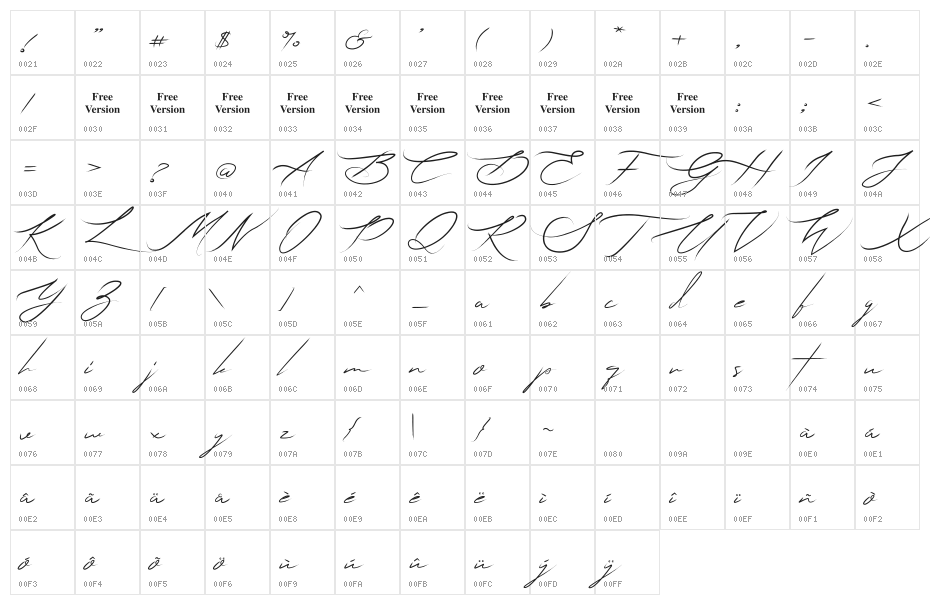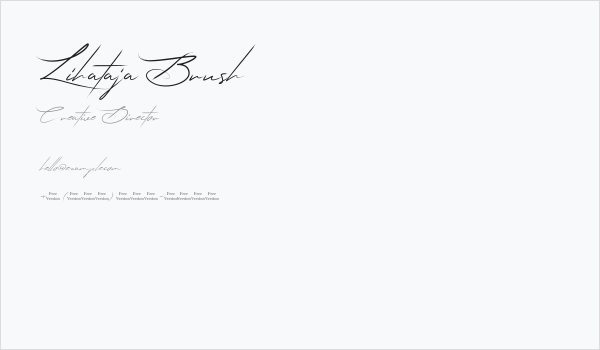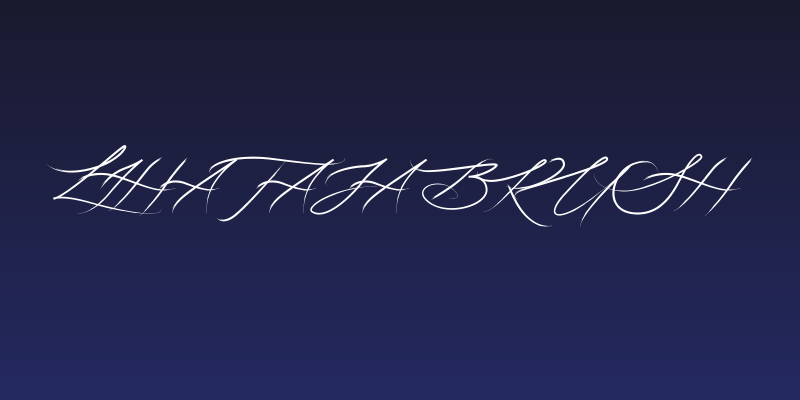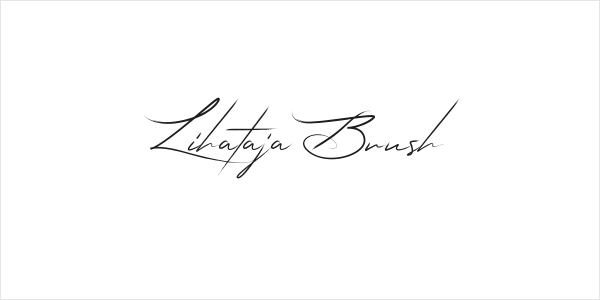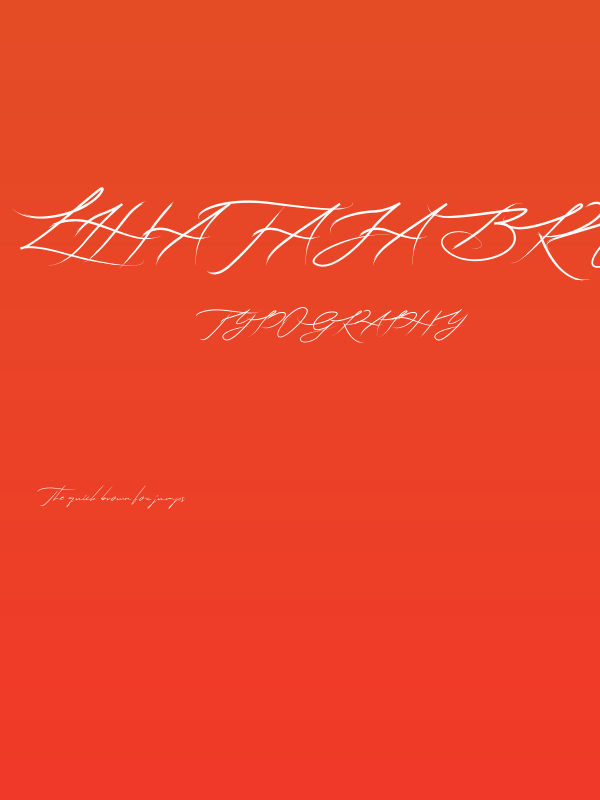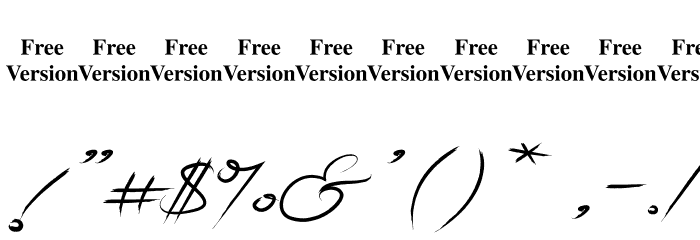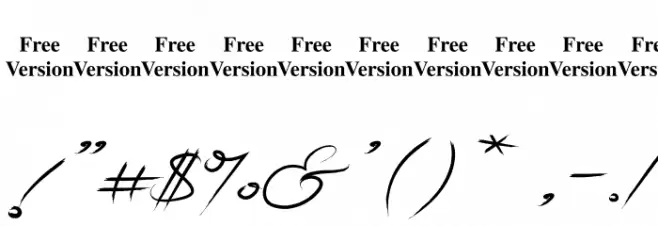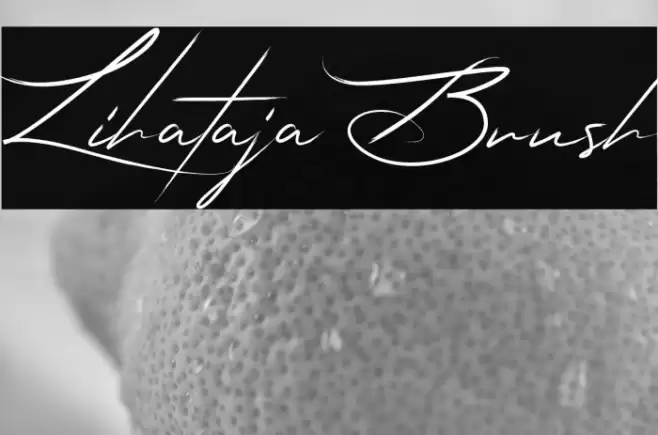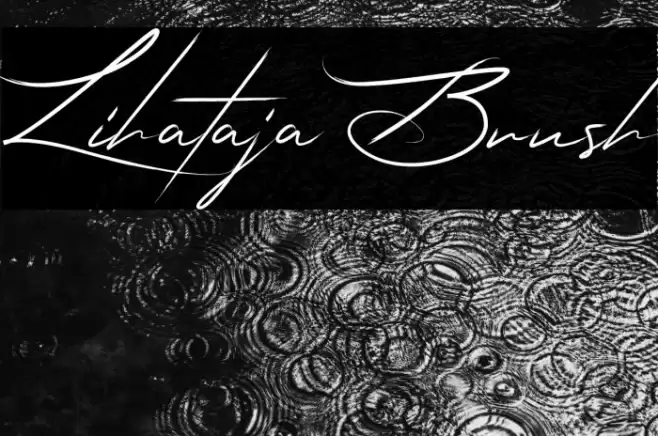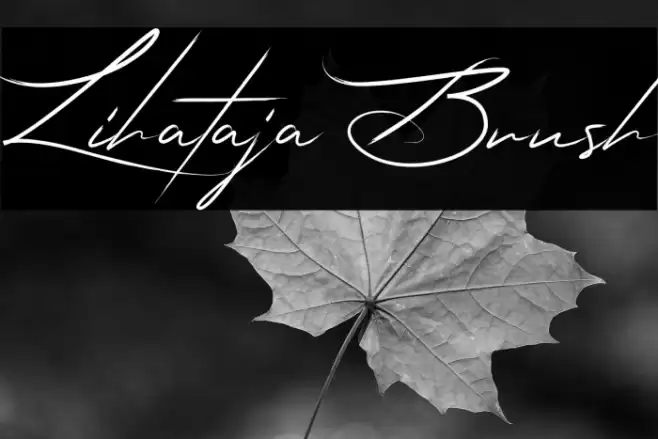
Lihataja Brush Font
This font features an elegant and flowing script style, characterized by its fluid and cursive letterforms. The uppercase letters are ornate with sweeping curves and loops, while the lowercase letters maintain a consistent slant, enhancing the handwritten appearance. The strokes vary in thickness, adding a dynamic and lively feel to the text. The font includes a full set of uppercase and lowercase letters, numbers, and a variety of special characters, making it versatile for different design needs. Its artistic flair and sophisticated style make it suitable for projects that require a personal touch.
| Proposed Projects | Ideal for wedding invitations, greeting cards, logos, and branding materials that require a personal and artistic touch. |